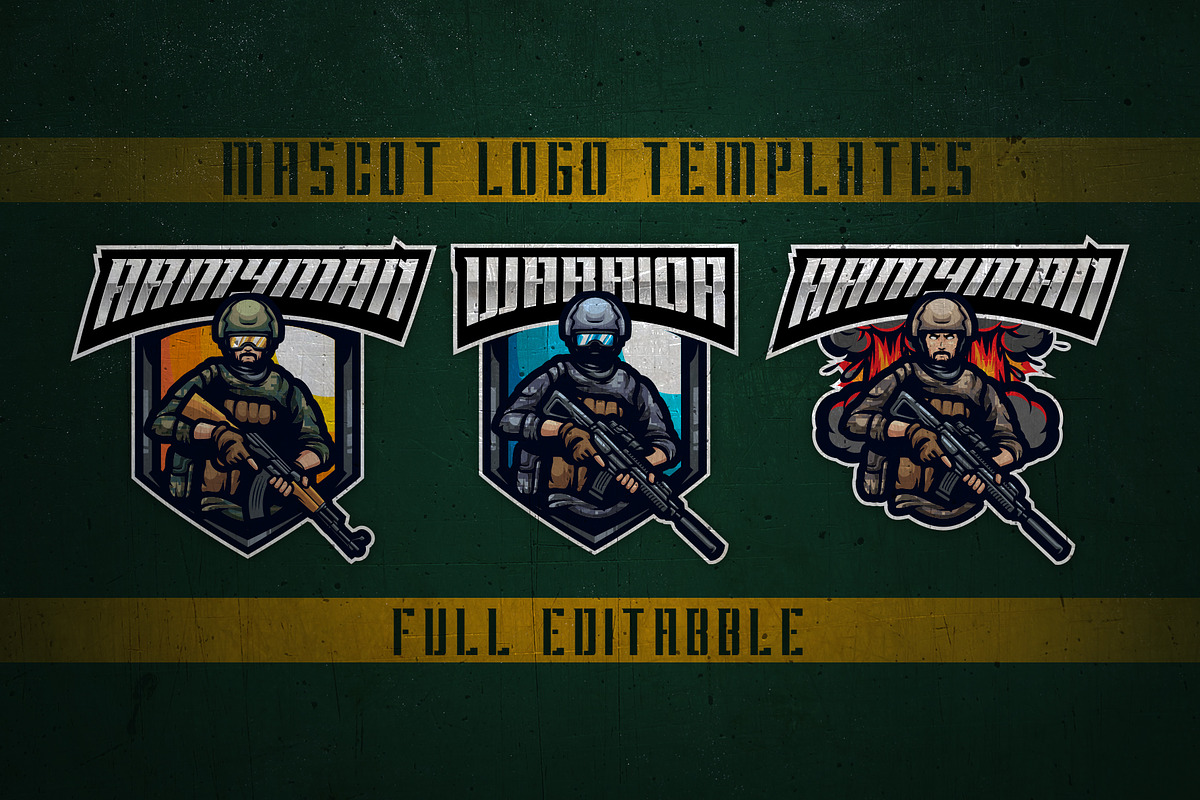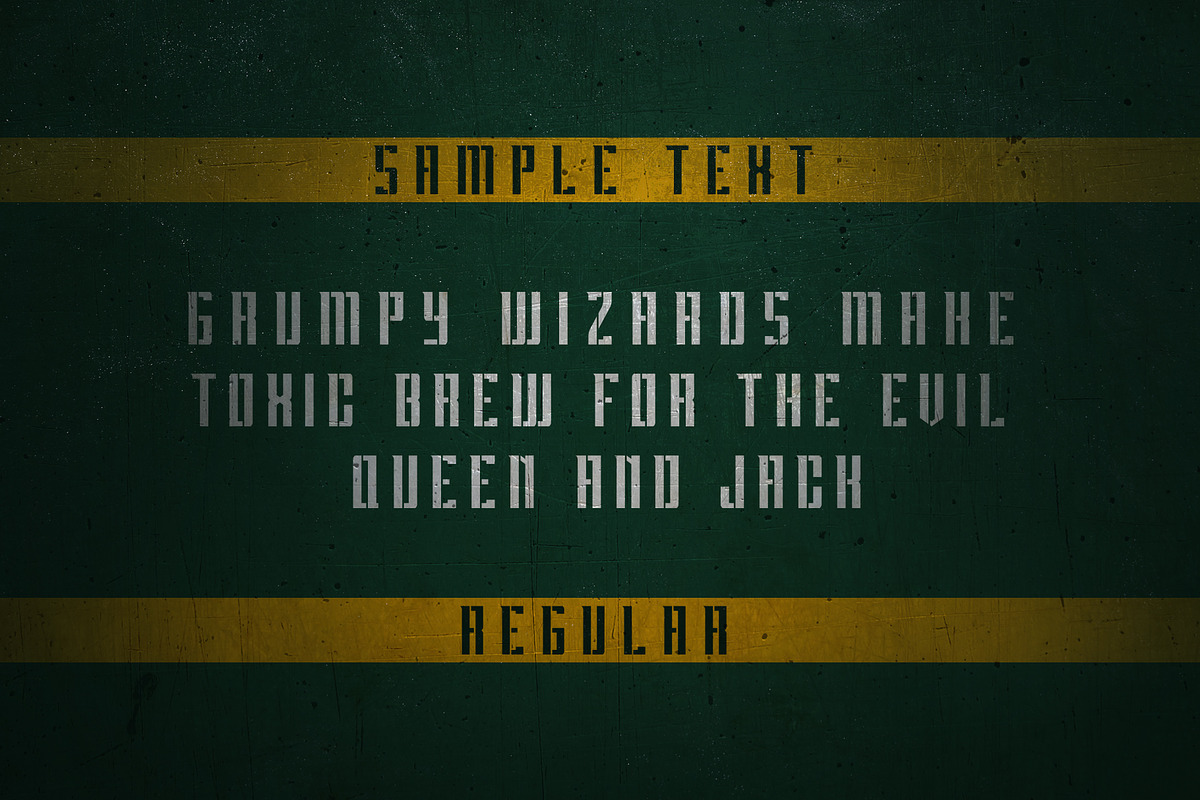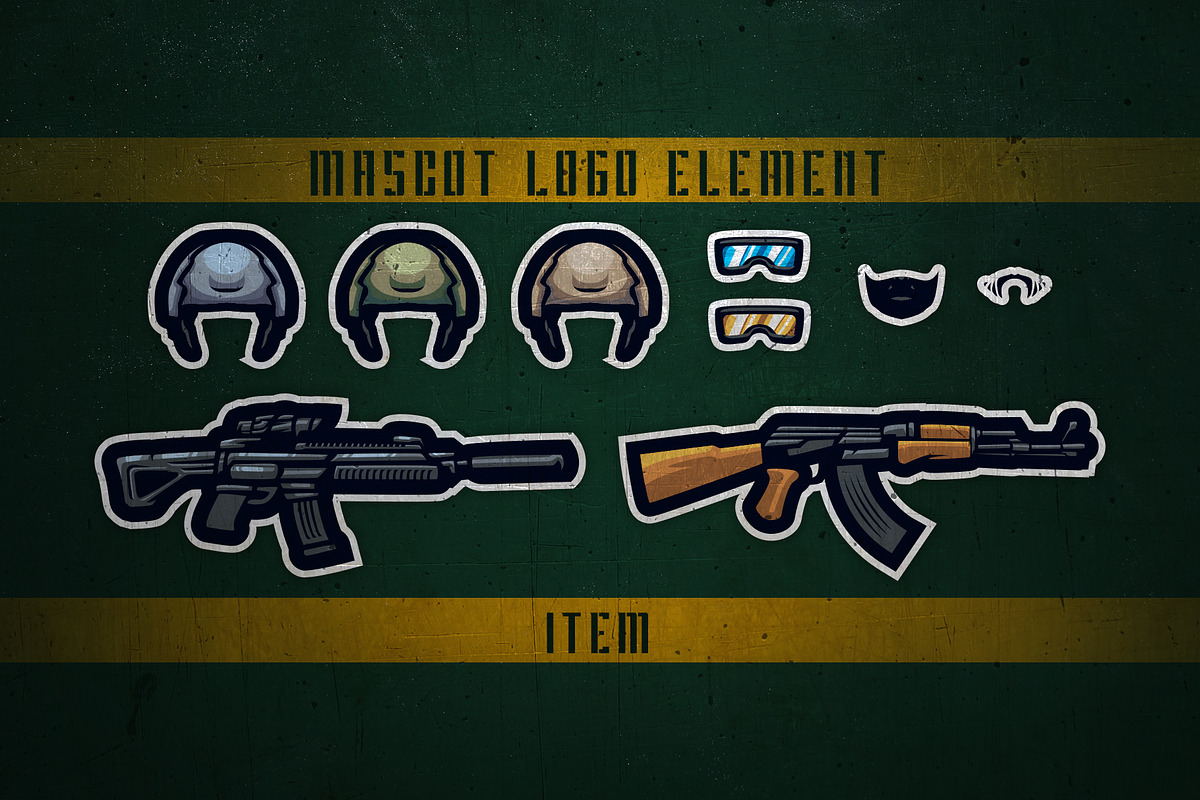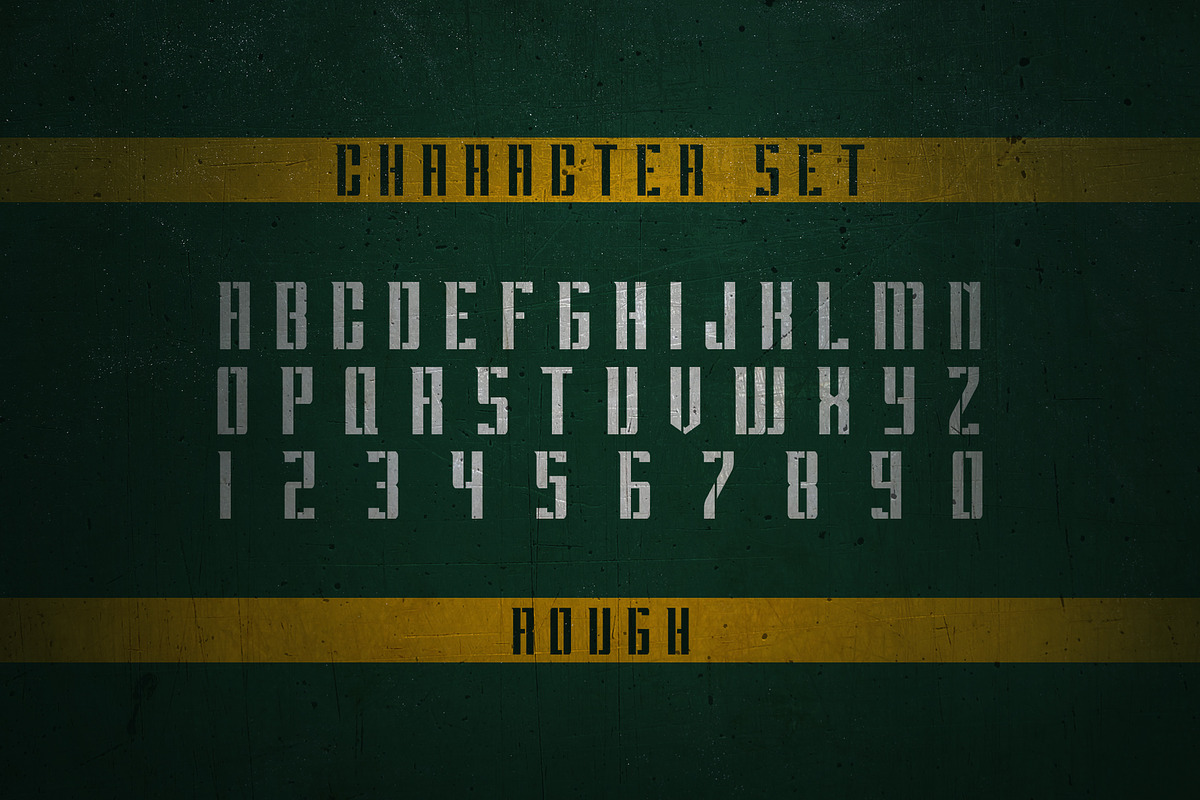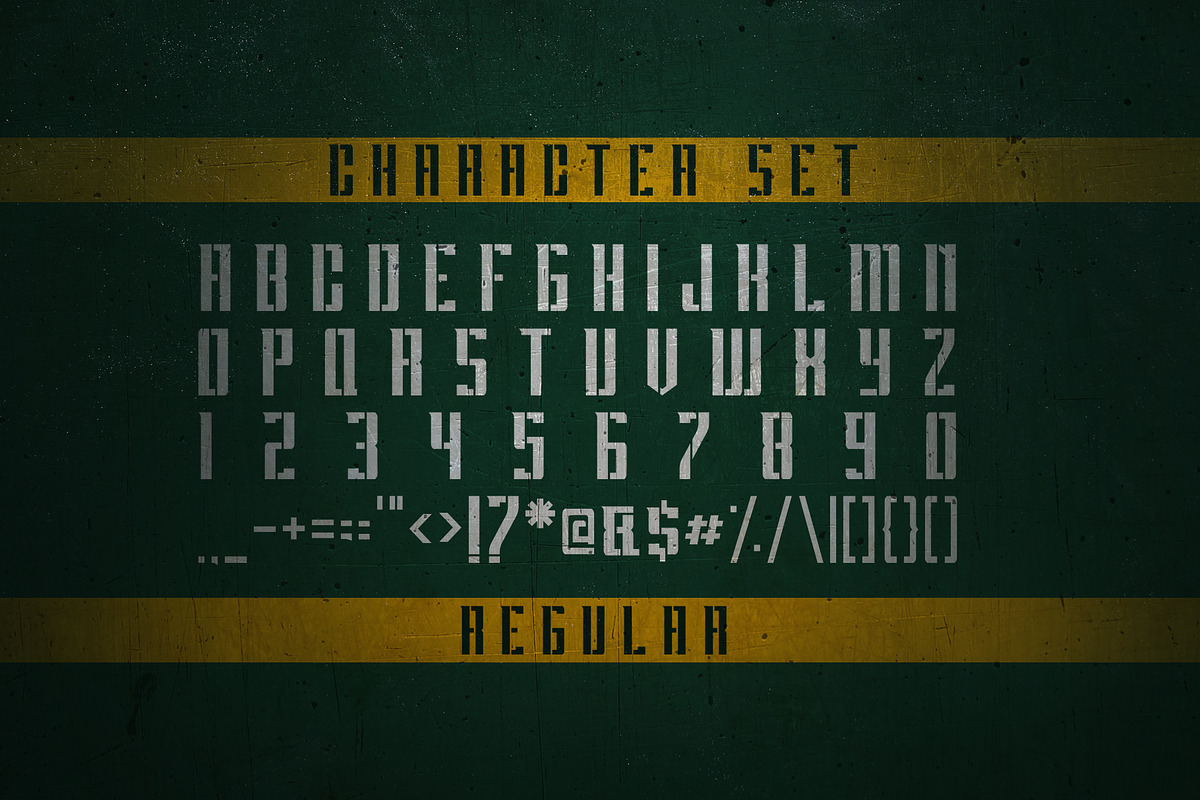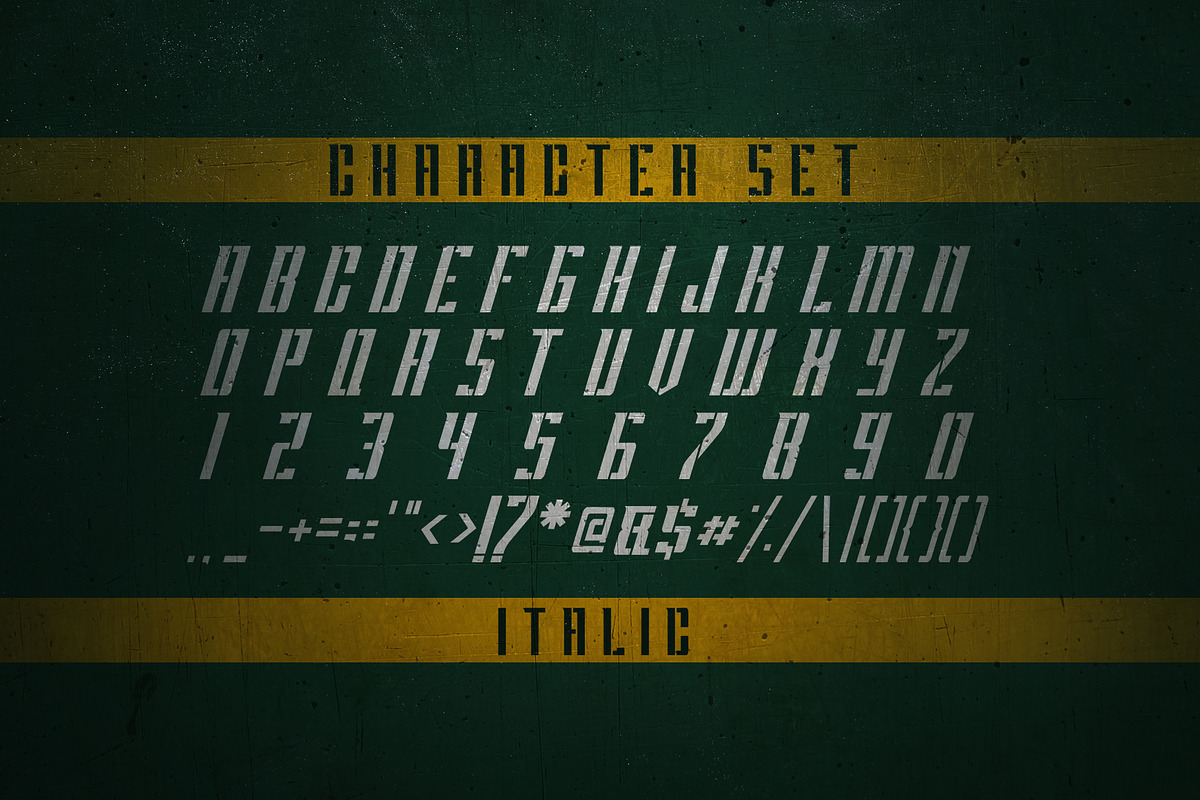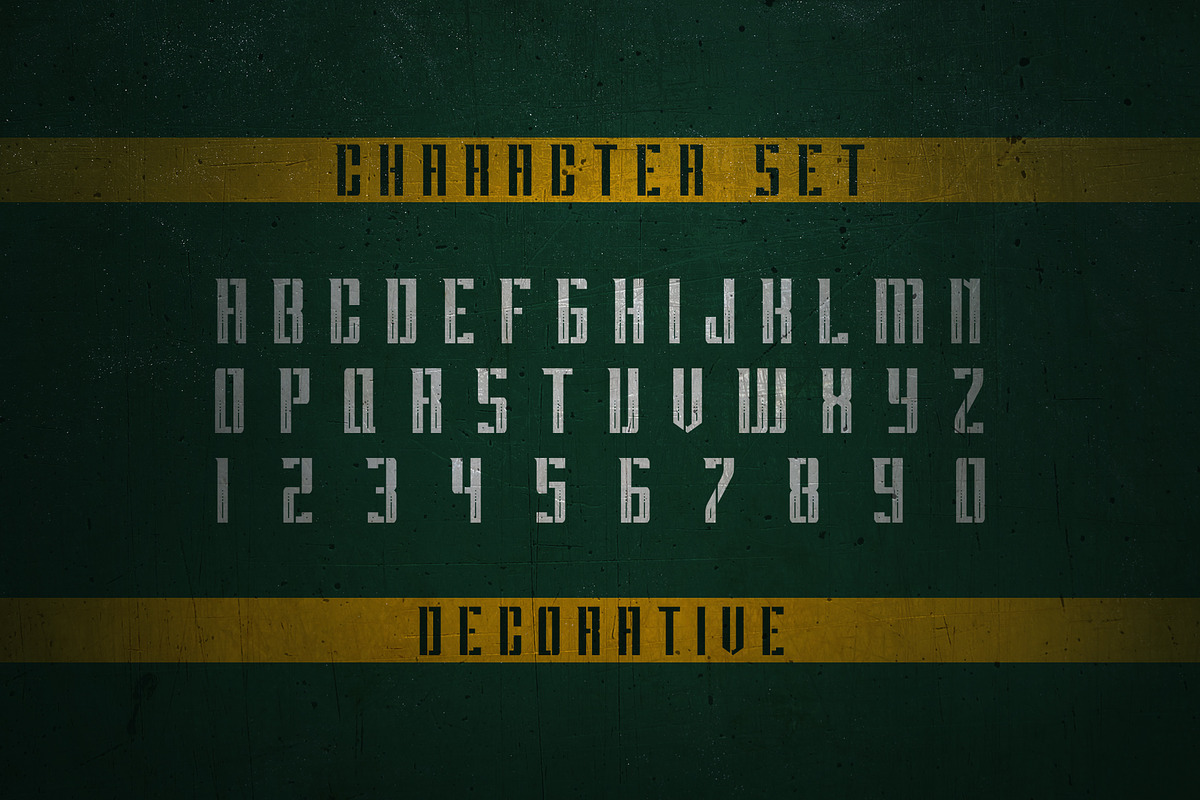
GRVS Apocalypse Stencil Font
Introducing!, Apocalypse Stencil Font and Mascot Logo Template
Why GRVS Apocalypse Stencil Font is worth a look
GRVS Apocalypse Stencil Font by GRVS Studio fits naturally into Branding, posters, packaging, typography.